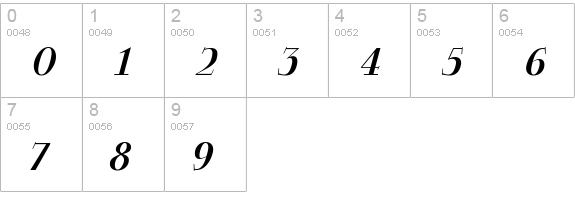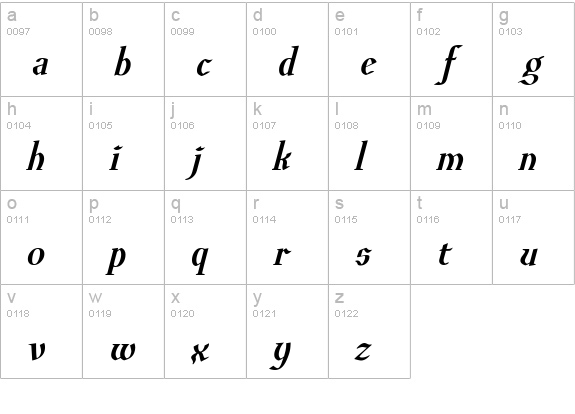
Euroika BoldItalic is a versatile and modern font that exudes style and sophistication. Its bold and italic design adds a touch of elegance to any project, making it perfect for headings, logos, and other creative designs. The sleek curves and sharp edges of Euroika BoldItalic create a striking visual impact that is sure to capture attention. The best part is that Euroika BoldItalic is completely free to download at FontsMarket.com. This means you can easily access this stunning font and incorporate it into your designs without any cost. Whether you are a professional designer or a casual hobbyist, Euroika BoldItalic is a valuable addition to your font collection. Don't miss out on the opportunity to enhance your projects with the beauty and versatility of Euroika BoldItalic. Download it for free today at FontsMarket.com and elevate your designs to the next level.